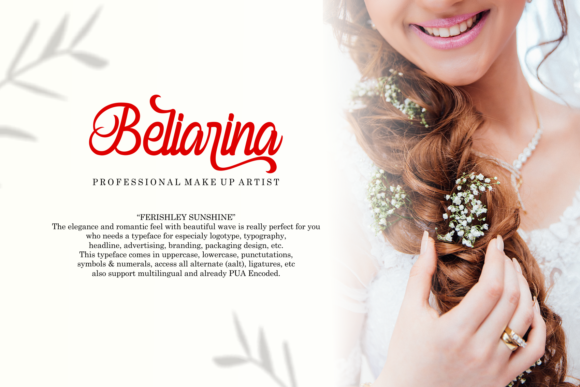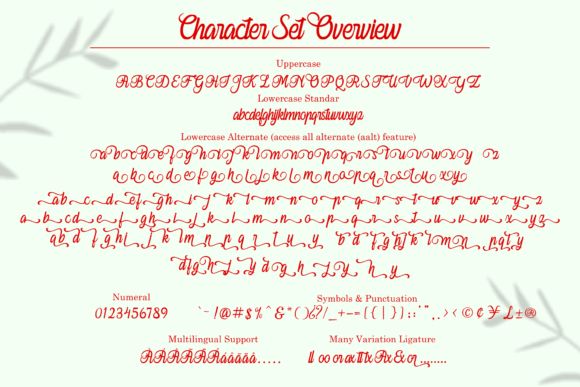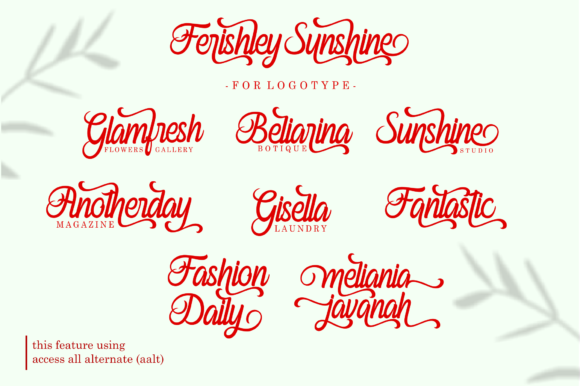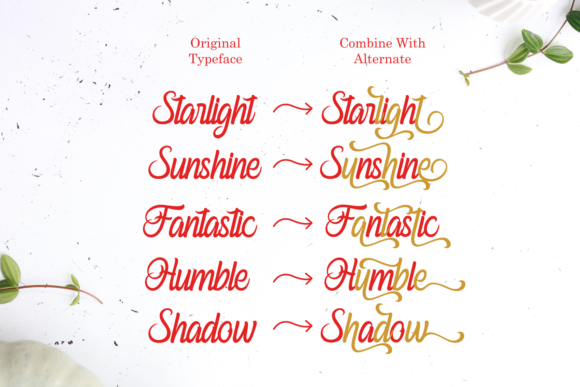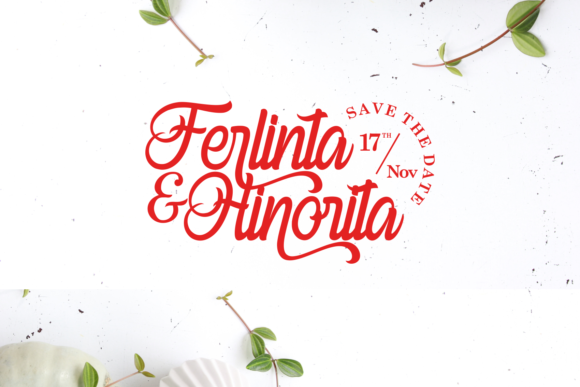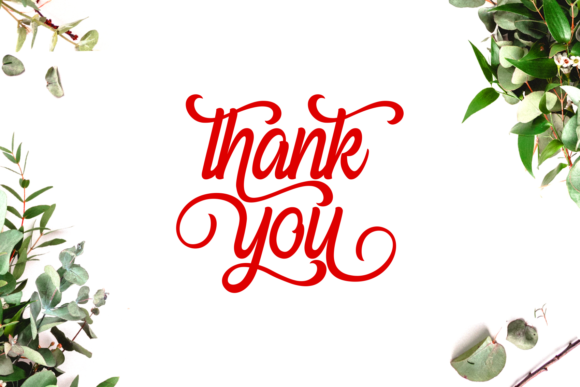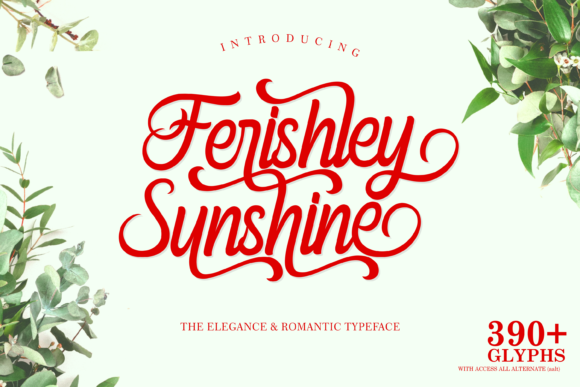
Ferishley Sunshine Font: Adding a Touch of Elegance and Romance to Your Designs
In the world of typography, fonts play a crucial role in conveying the tone and personality of a design. For designers and crafters looking to add a touch of elegance and romance to their projects, Ferishley Sunshine Font is an excellent choice. This beautiful script font is designed to bring a sense of sophistication and whimsy to any design, making it perfect for a wide range of applications.
What is Ferishley Sunshine Font?
Ferishley Sunshine Font is a script font that exudes elegance and romance. Its flowing lines and delicate curves give it a whimsical feel that’s perfect for designs that require a personal touch. Whether you’re working on a wedding invitation, a branding project, or a craft design, Ferishley Sunshine Font is sure to make your work stand out.
Key Features of Ferishley Sunshine Font
- Elegant and Romantic Feel: Ferishley Sunshine Font is designed to evoke a sense of elegance and romance. Its flowing lines and delicate curves make it perfect for designs that require a touch of sophistication.
- Script Font: As a script font, Ferishley Sunshine Font is perfect for adding a personal touch to your designs. Its cursive lines and fluid connections make it ideal for designs that require a sense of movement and flow.
- Highly Versatile: Ferishley Sunshine Font is highly versatile and can be used for a wide range of applications, from wedding invitations and branding projects to craft designs and more.
- Easily Readable: Despite its elegant and cursive nature, Ferishley Sunshine Font is easily readable, making it perfect for designs that require a clear and concise message.
Uses of Ferishley Sunshine Font
Ferishley Sunshine Font is perfect for a wide range of design applications, including:
- Wedding Invitations: Add a touch of elegance and romance to your wedding invitations with Ferishley Sunshine Font.
- Branding Projects: Use Ferishley Sunshine Font to create a sophisticated and memorable brand identity.
- Craft Designs: Ferishley Sunshine Font is perfect for craft designs, such as handmade cards, gift tags, and more.
- Stationery: Add a touch of elegance to your stationery with Ferishley Sunshine Font.
Tips for Using Ferishley Sunshine Font
Here are some tips for using Ferishley Sunshine Font effectively in your designs:
- Use it Sparingly: Ferishley Sunshine Font is a elegant and romantic font, so use it sparingly to avoid overwhelming your design.
- Pair it with Other Fonts: Pair Ferishley Sunshine Font with other fonts to create a unique and interesting contrast.
- Experiment with Colors: Ferishley Sunshine Font looks great in a variety of colors, so experiment with different colors to find the one that works best for your design.
Ferishley Sunshine Font is a beautiful script font that’s perfect for designers and crafters looking to add a touch of elegance and romance to their designs. With its flowing lines, delicate curves, and highly versatile nature, Ferishley Sunshine Font is sure to become a favorite in your design arsenal. Whether you’re working on a wedding invitation, a branding project, or a craft design, Ferishley Sunshine Font is an excellent choice.